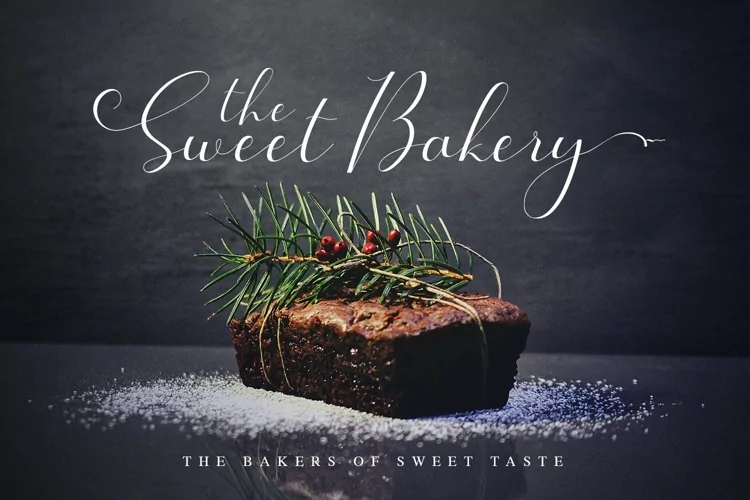
Bakery Tastyla Modern Freestyle Font
Bakery Tastyla - Modern Freestyle Font , from Letterena, is a Luxury Script font, suitable for any projects such as: logos, branding projects, homeware designs, product packaging, mugs, quotes, posters, shopping bags, t-shirts, book covers, name card, invitation cards, greeting cards, label, photography, watermark, special events, and all your other luxury and beautiful projects that need a Luxury Script taste.
Ligature, Alternate & Swashes